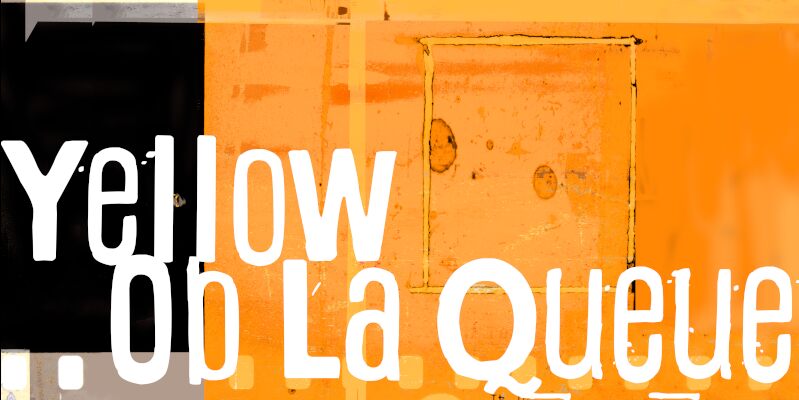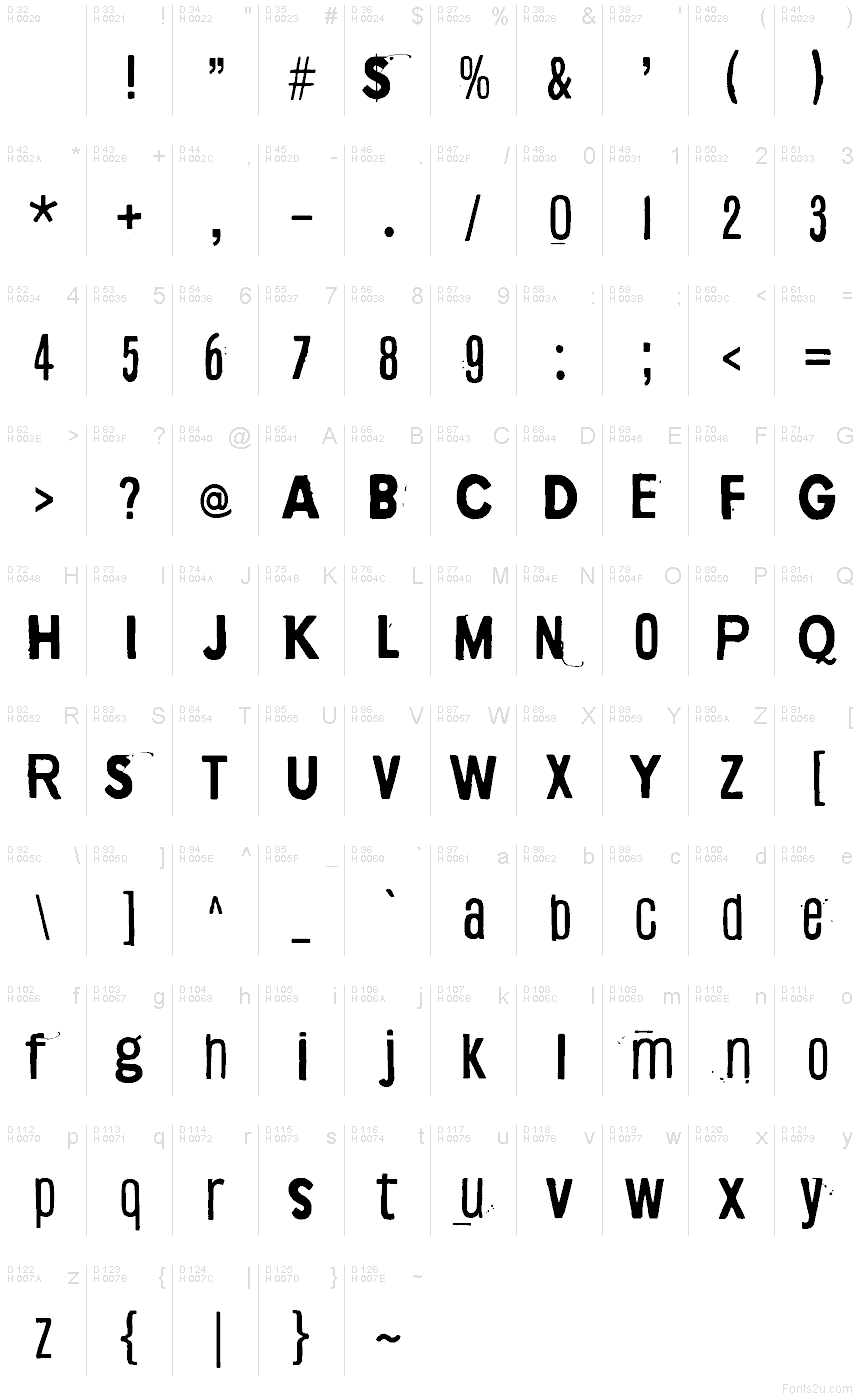
Yellow Ob La Queue
Yellow Ob La Queue font by Juha Korhonen is a free rough eroded display font. It stands out with tall, tightly packed forms that look scrubbed by sandpaper—scuffed stems, gritty edges, and a wry, dragging tail that feels hand-scratched. The rhythm is condensed and urgent, giving headlines a scrappy, street-level punch without losing legibility.
Using Yellow Ob La Queue, you get instant texture for gig posters, garage-rock album art, craft beer labels, streetwear graphics, zines, and festival signage. The uneven erosion adds movement and attitude, so short lines hit hard and feel lived-in. Set it big with slightly tighter tracking, and pair it with a clean condensed sans for body copy to let this free font’s grainy voice lead.